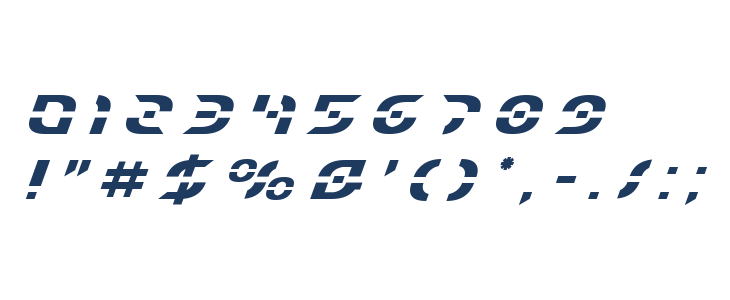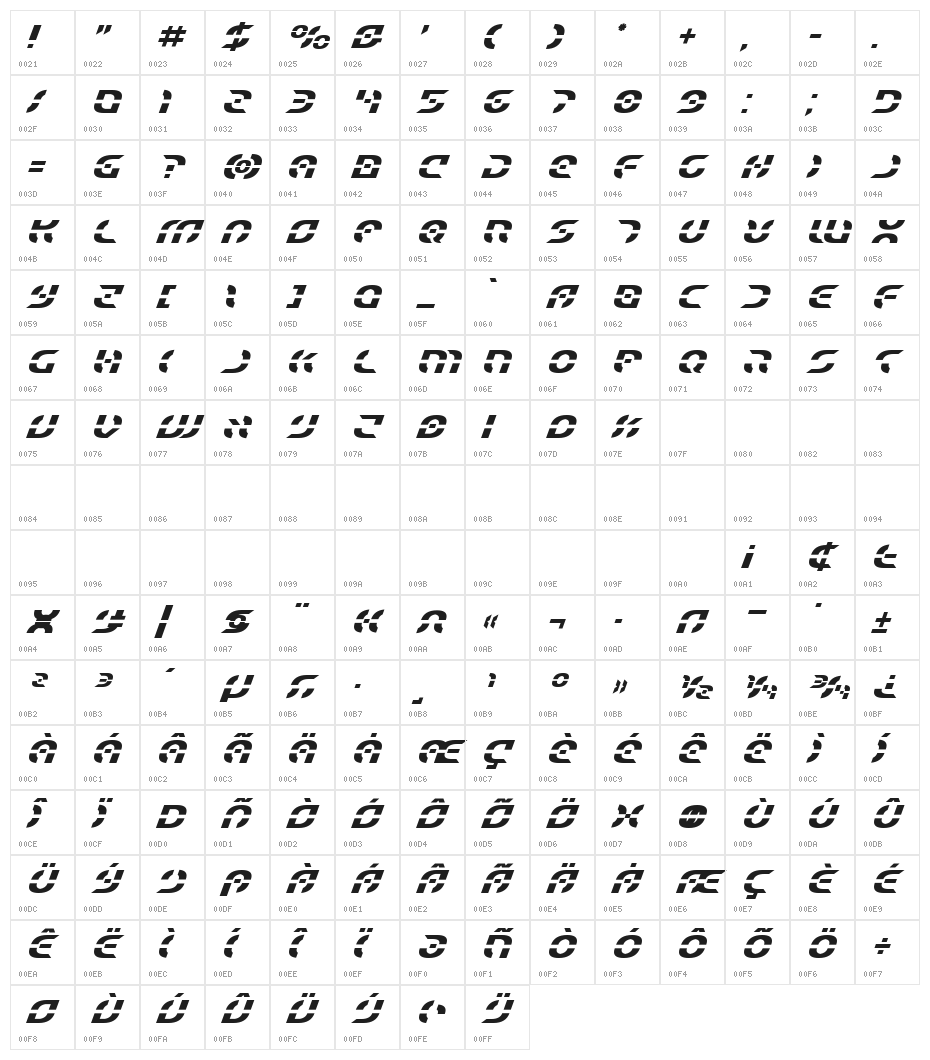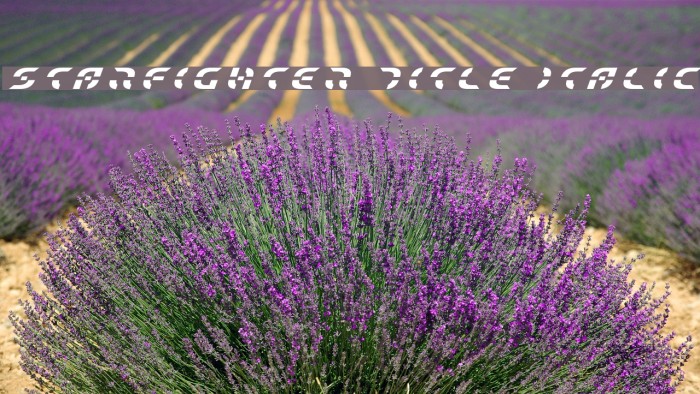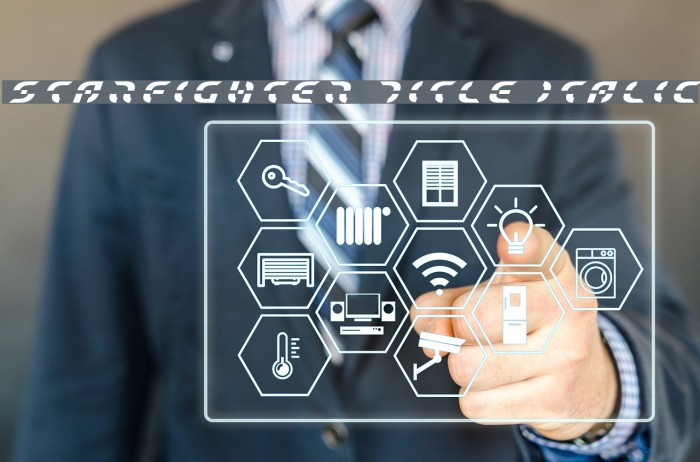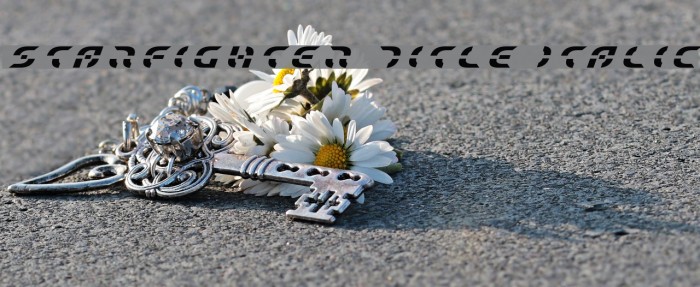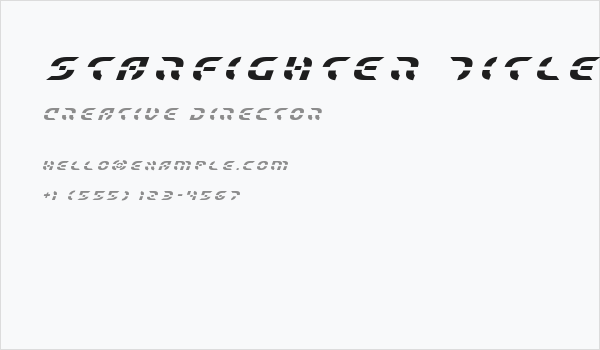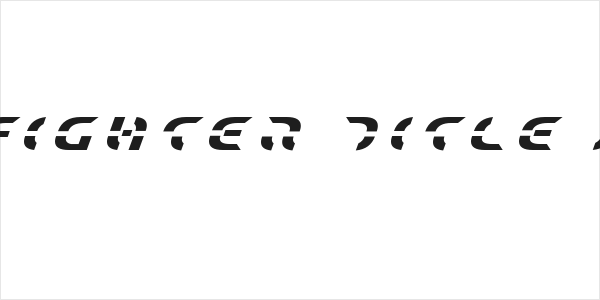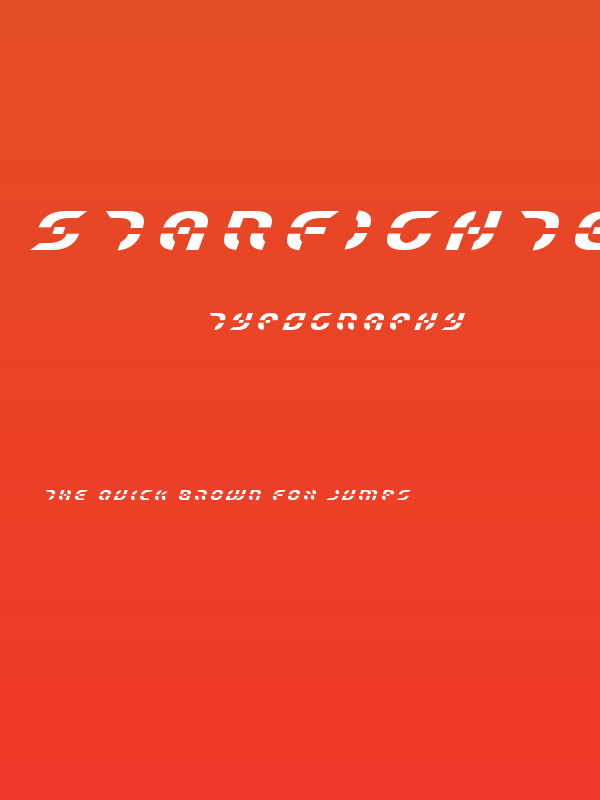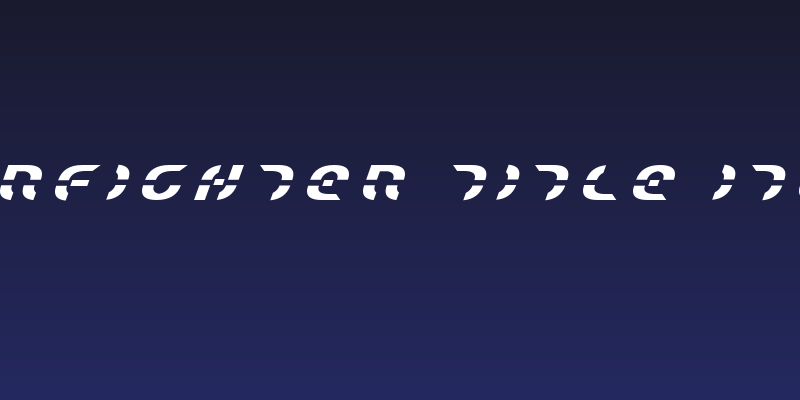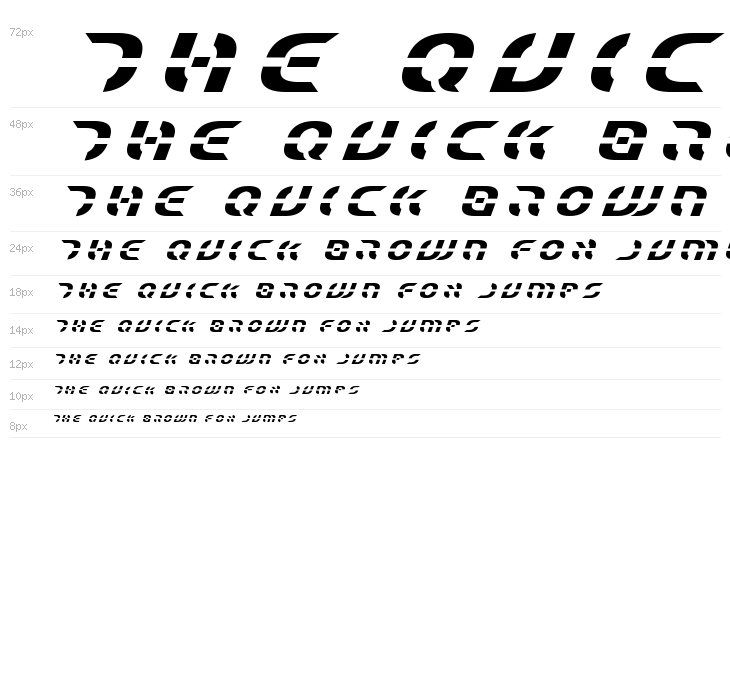
Starfighter Title Italic Font
Starfighter Title Italic Description
This font features a futuristic and angular design, characterized by its sharp edges and geometric forms. The italic style adds a dynamic and forward-leaning appearance, enhancing its modern aesthetic. The characters are composed of bold strokes with a consistent thickness, creating a uniform and cohesive look. The font includes both uppercase and lowercase letters, numerals, and a variety of special characters, making it versatile for different design needs. Its unique style is reminiscent of science fiction themes, suitable for projects that require a cutting-edge and innovative feel.
| Proposed Projects | Ideal for sci-fi themed posters, video game titles, tech branding, and futuristic logos. |